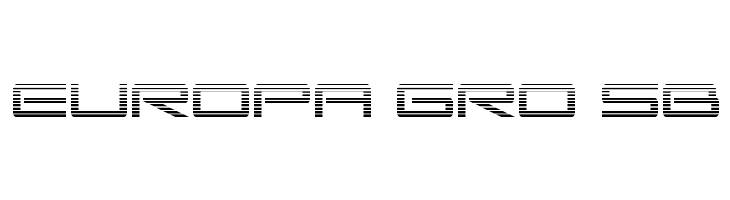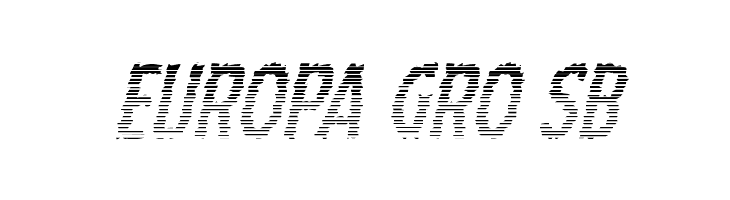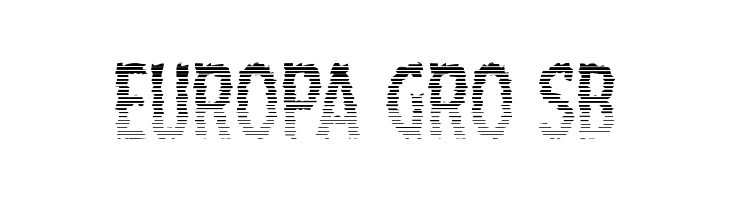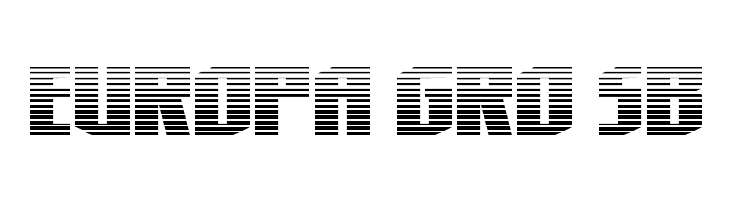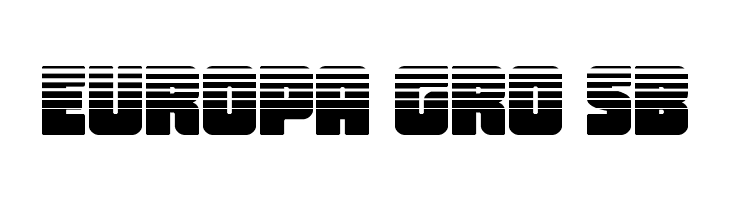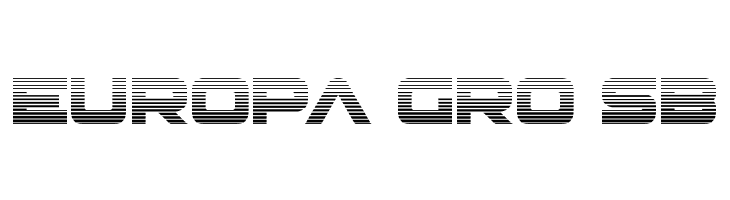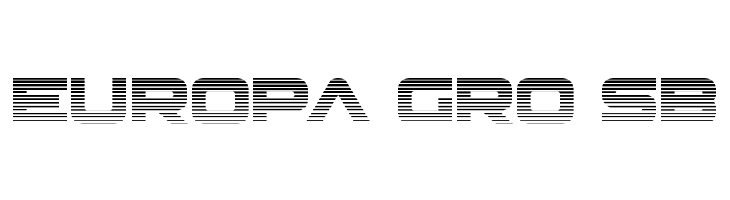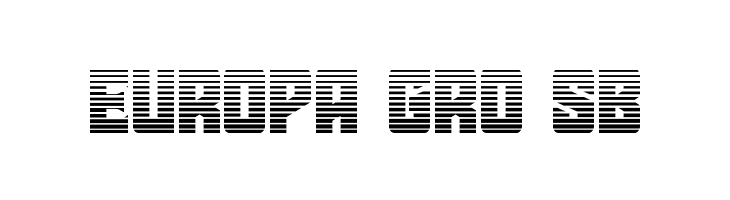
A futuristic, geometric font with a striped, horizontal line design.
A modern, italic font with a gradient effect and dynamic horizontal lines.
A bold, gradient-style font with horizontal line textures for a dynamic look.
A bold, modern font with a unique horizontal line gradient effect.
A bold, italicized font with a gradient effect created by horizontal lines.
A bold, geometric font with a gradient effect created by horizontal lines.
A bold, geometric font with a halftone effect and horizontal line design.
A futuristic, bold font with geometric letterforms and horizontal line patterns.
A futuristic font with gradient-like horizontal lines creating a dynamic and modern look.
A bold, futuristic font with a distinctive horizontal line pattern and geometric structure.